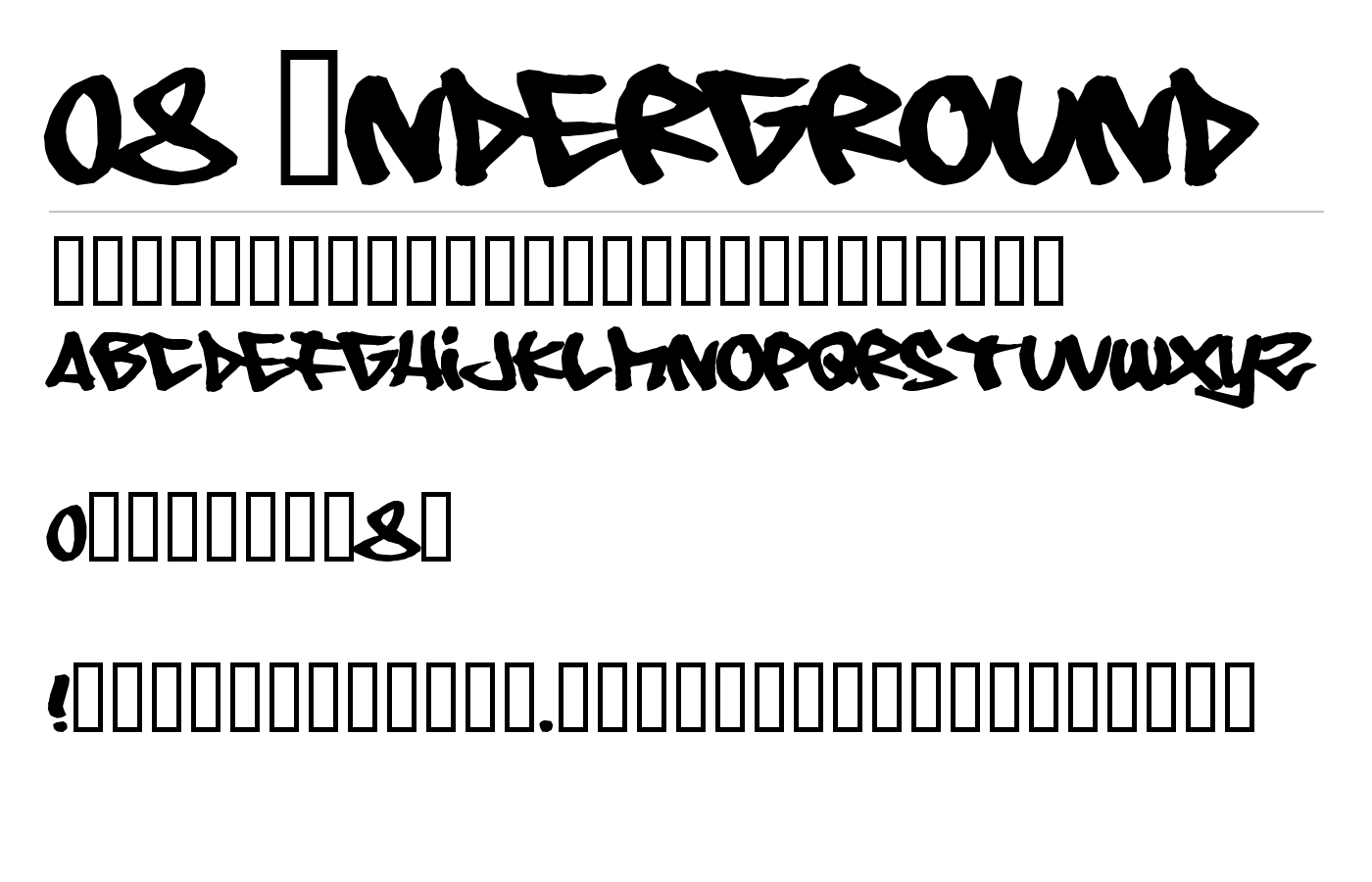
08 Underground is a bold, expressive handwritten font that exudes urban street art vibes with its rough, energetic strokes and irregular letterforms. Its casual and dynamic style makes it perfect for edgy branding, posters, and creative projects that want to convey authenticity and youthful rebellion. This font captures a raw, graffiti-inspired spirit that stands out in headlines and display uses.
08 Underground Font